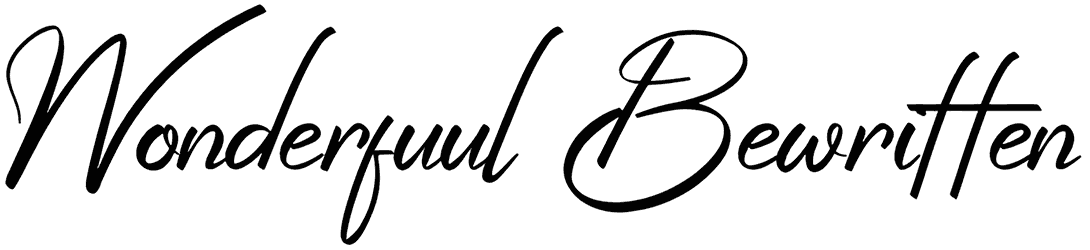
Wonderfuul Bewritten Font
Make a wonderful impression by choosing a unique and fashionable face for your writing by Wonderfuul Bewritten. As a wedding font with elegant twisted lines, it will create a professional and deluxe mood for designs. Place Wonderfuul Bewritten on your upcoming projects, such as logotypes, postcards, flyers, or anything with any theme, and you will see it can satisfy you.
This font retains a classy calligraphic influence while feeling contemporary and fresh. This versatility will attract a wide range of creative ideas, from letterheads and titles to stationery.